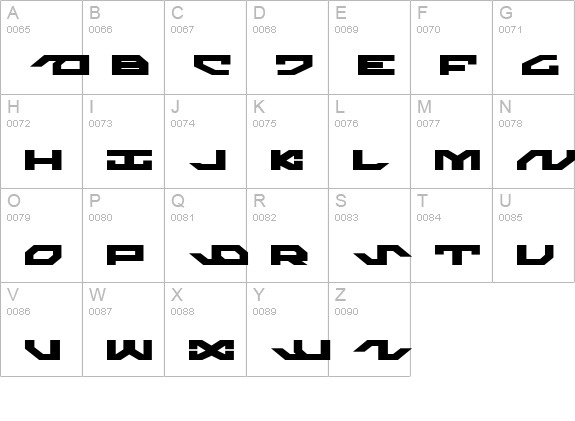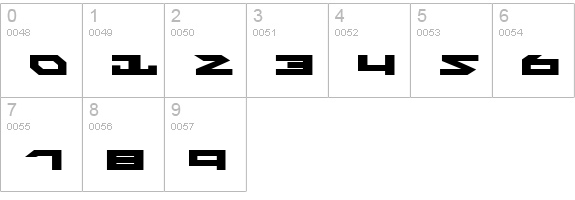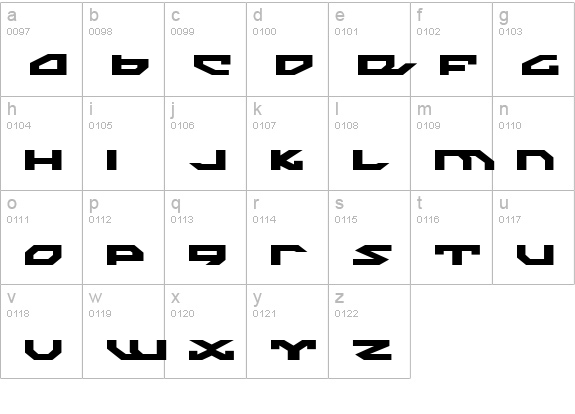
Nightrunner Expanded is a distinctive, extended-width variant in the Nightrunner typeface family \xE2\x80\x94 well suited to design and typography projects.
Nightrunner Expanded font is a sleek and modern typeface that exudes sophistication and elegance. With its elongated letterforms and clean lines, this versatile font is perfect for a wide range of design projects. Whether you're creating a logo, designing a poster, or crafting a website, Nightrunner Expanded font will add a touch of class to your work. What's even better is that Nightrunner Expanded font is available for free download at FontsMarket.com. This means you can easily access this high-quality font without any cost, making it a valuable addition to your font collection. Don't miss out on the opportunity to enhance your designs with the timeless charm of Nightrunner Expanded font. Download it today and see the difference it can make in your projects!